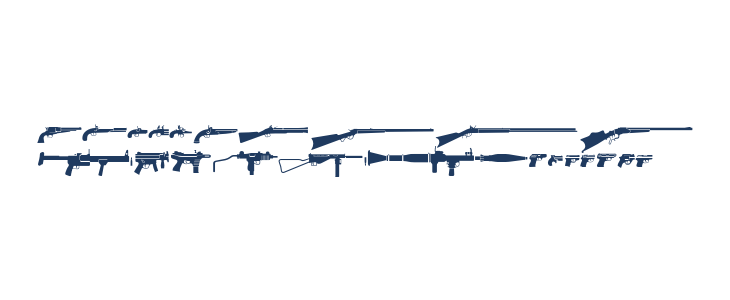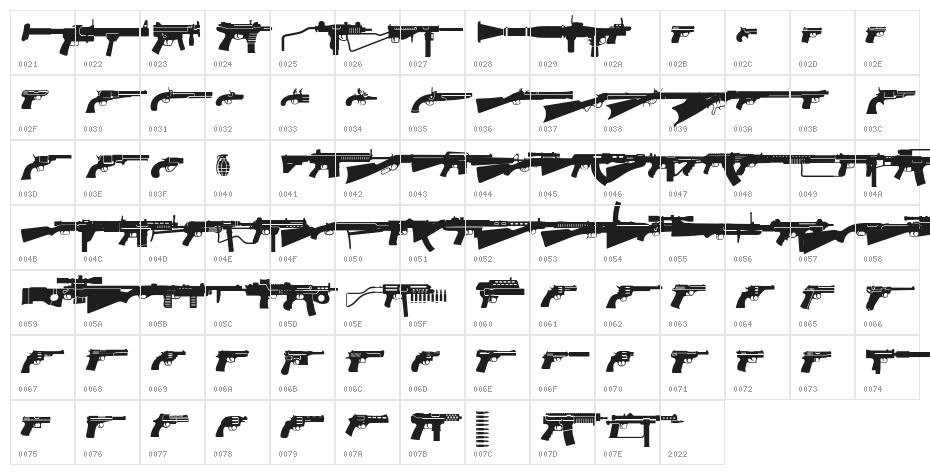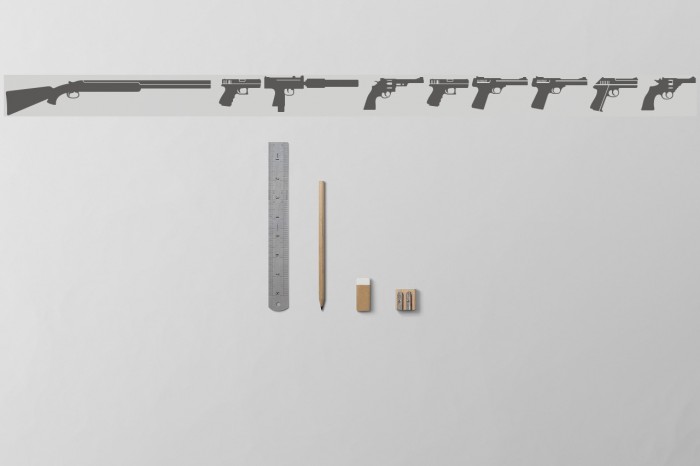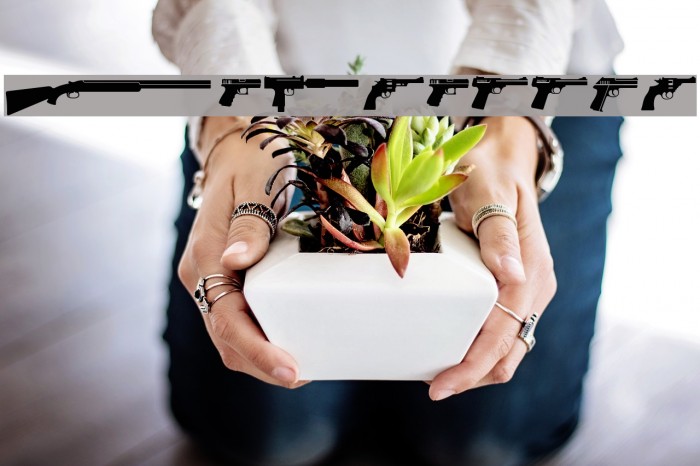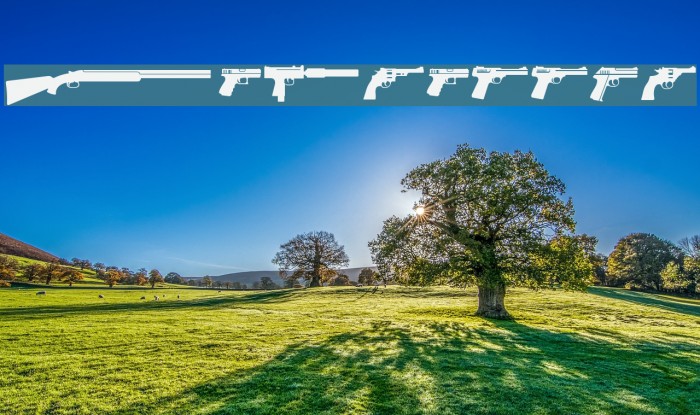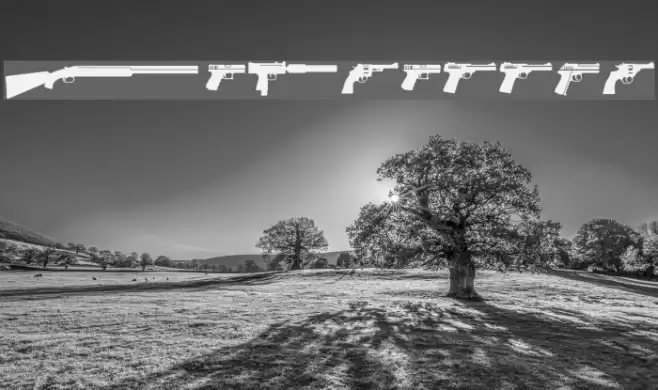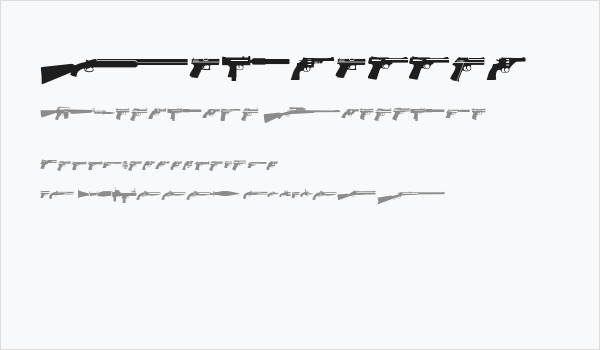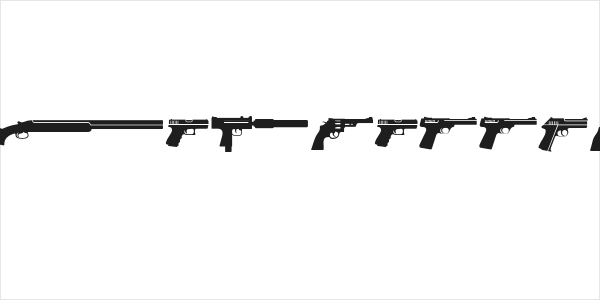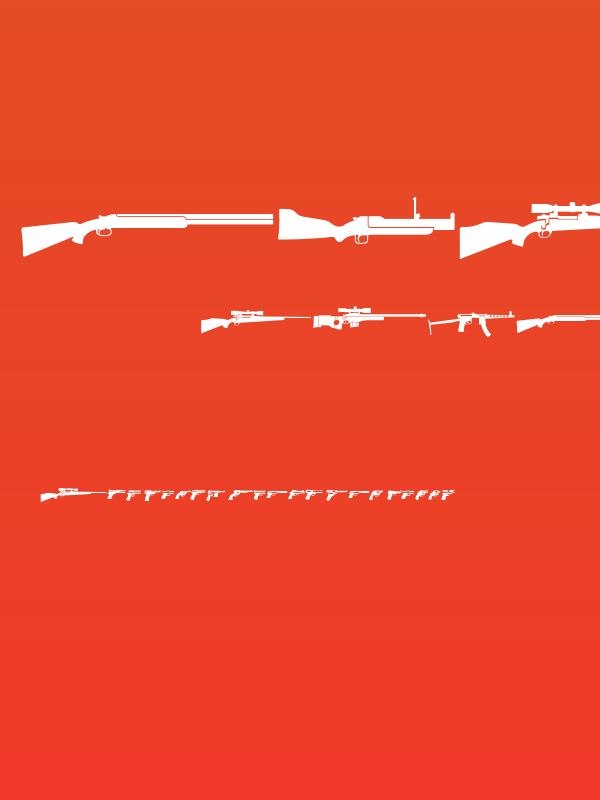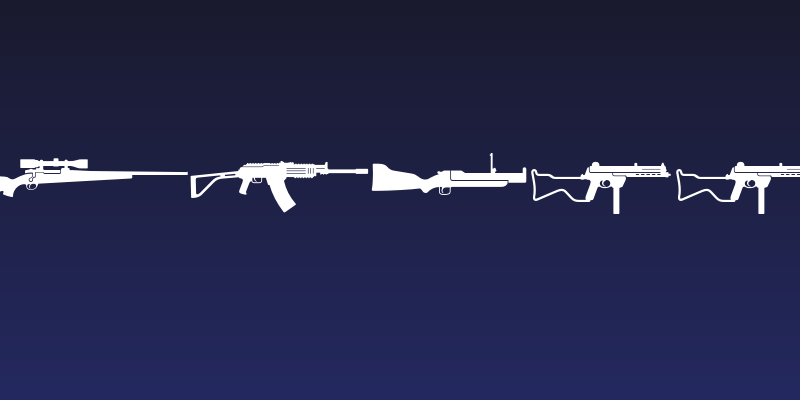
Outgunned Font
Outgunned Description
A decorative display font composed entirely of detailed firearm silhouettes, including rifles, pistols, shotguns, and heavy weaponry, each glyph representing a different weapon profile in black with no traditional letterforms.
| Overall Style | Decorative, Thematic, Novelty |
| Use Case | Logos, Headlines, Posters, Themed graphics |
| Proposed Projects | Video game titles, action movie posters, military-themed event flyers, novelty merchandise, anti-violence campaigns (with context), or themed party invitations. |